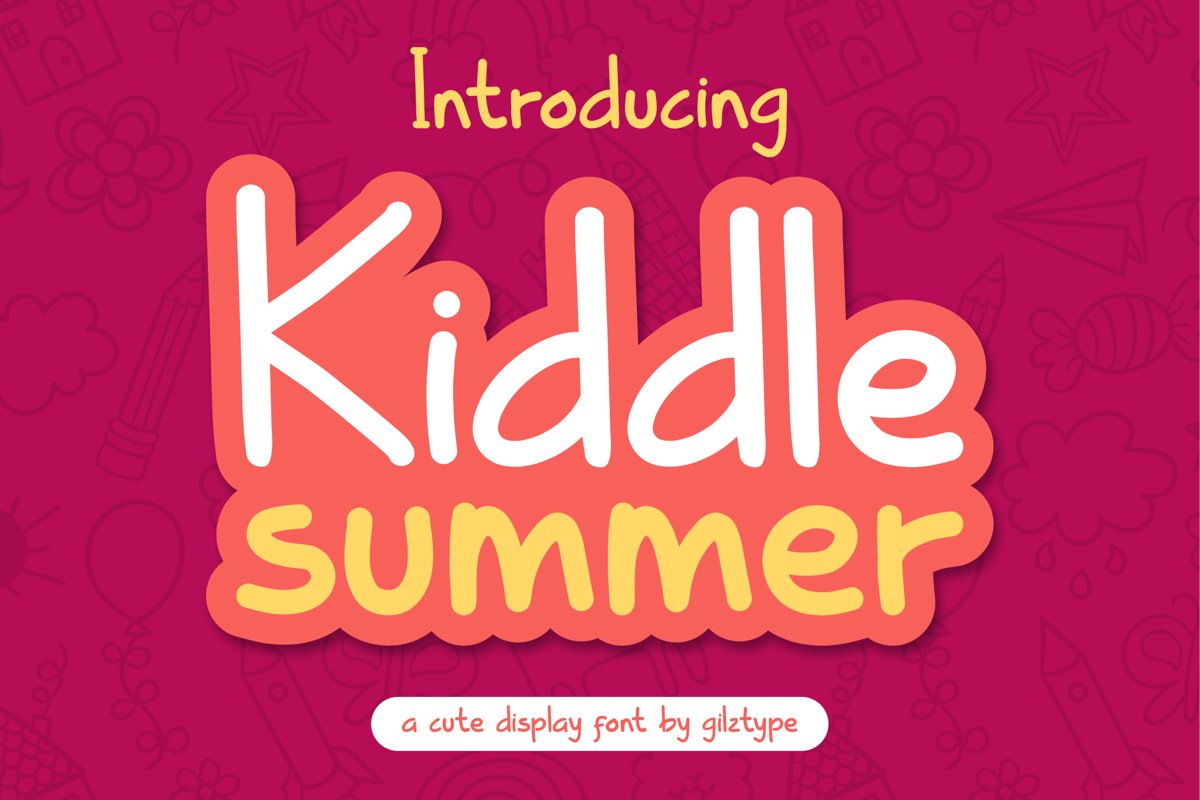
Kiddle Summer - Cute Display Font
KiddleSummer
Introducing Kiddle Summer - Cute Display Font
This font perfect for children book, apparel design, product packaging, invitation card, and much more!